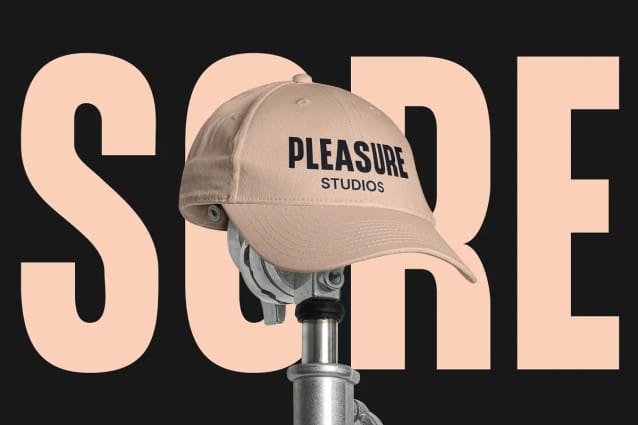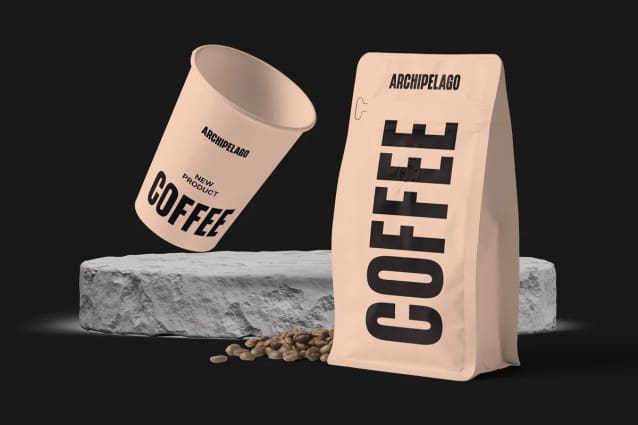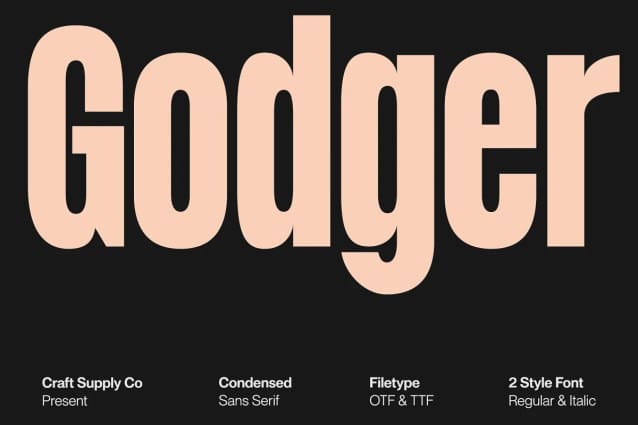
Godger Font
Godger Font – Condensed Sans Serif: Boldness Redefined Step into the bold world of Godger, where strength and simplicity converge. This bold, masculine font is a powerhouse, built for strong, memorable branding. Its condensed form is not only space-efficient but also packs a punch, perfect for headlines that demand attention.
Masculine and Commanding Godger’s bold, condensed letters exude a sense of command, making it a go-to for titles needing a masculine touch. Each letter is crafted for high impact, ensuring your words aren’t just read, but felt. This font doesn’t whisper; it shouts with a clear, authoritative voice.
Character with Clarity Despite its bold nature, Godger Font maintains exceptional clarity. The careful design ensures that each character stands out, even when space is at a premium. Its strong lines and clear forms make it a practical choice for both print and on-screen use, where legibility is key.
Title-Ready Typeface Ease of use defines the Godger Font – Condensed Sans Serif experience. It integrates smoothly into your design workflow, ready to elevate your titles and headers. This typeface not only speaks to the audience but also resonates with them, ensuring that the first impression is both striking and lasting.